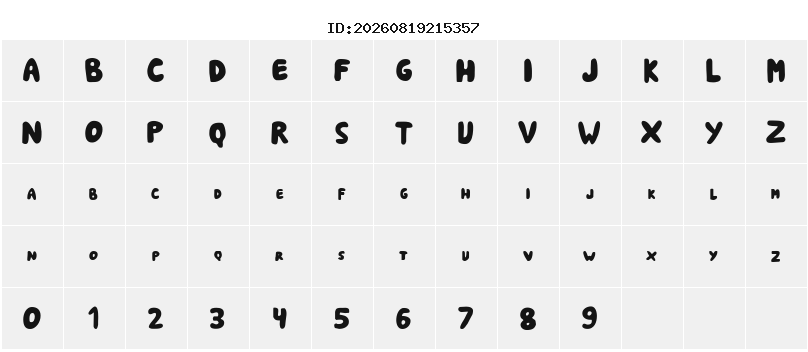
• Font Name: Shark Soft Bites
• Font Style: Shark Soft Bites
• Full Font Name: Shark Soft Bites
About Shark Soft Bites.ttf
Shark Soft Bites.ttf is a modern, elegant sans-serif font designed for ultimate readability and visual harmony. Perfect for branding, headlines, web design, and print materials.